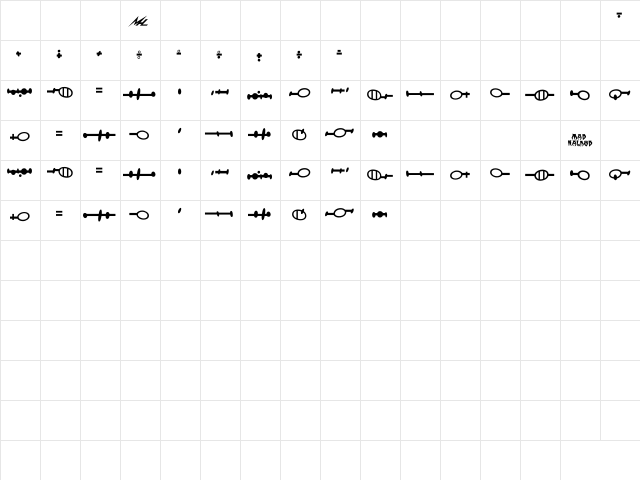
Andorian Bold
Design Context for Andorian Typeface
Andorian is a composed and adaptable typeface that performs quietly and consistently across a wide range of design contexts. Its bold stroke weight gives it real presence on the page.